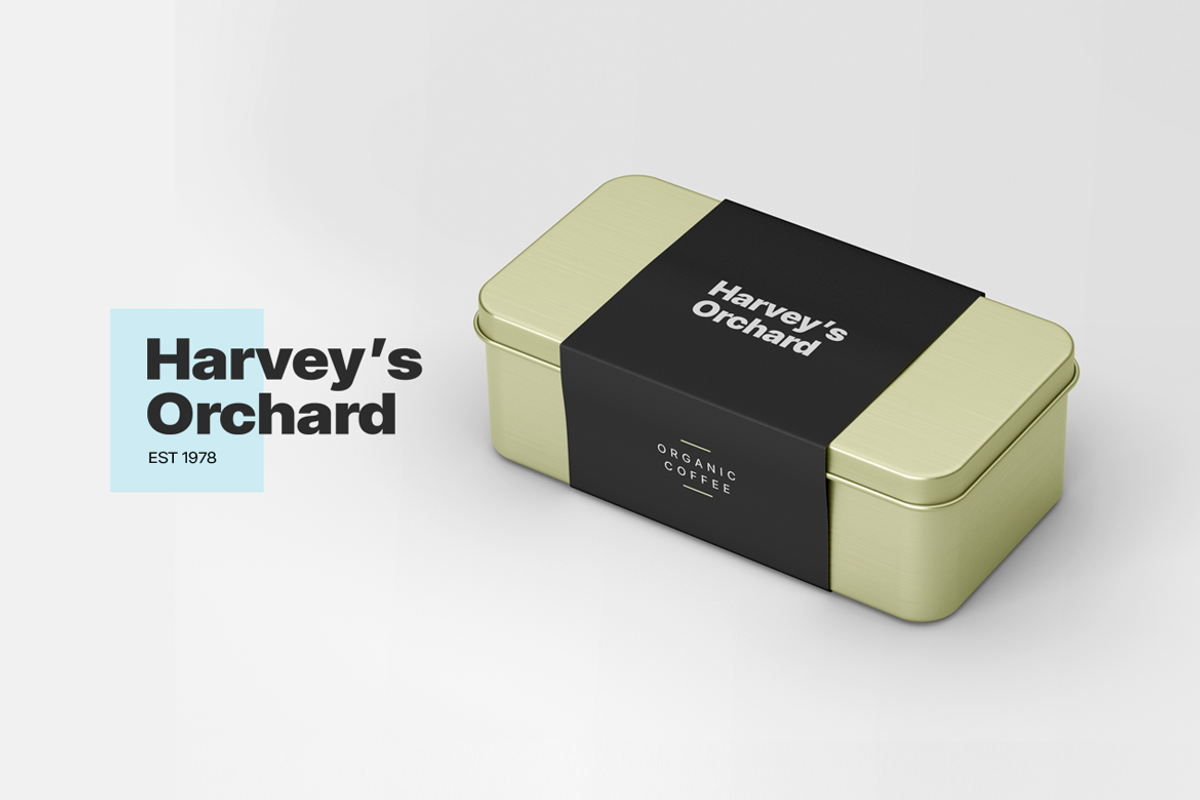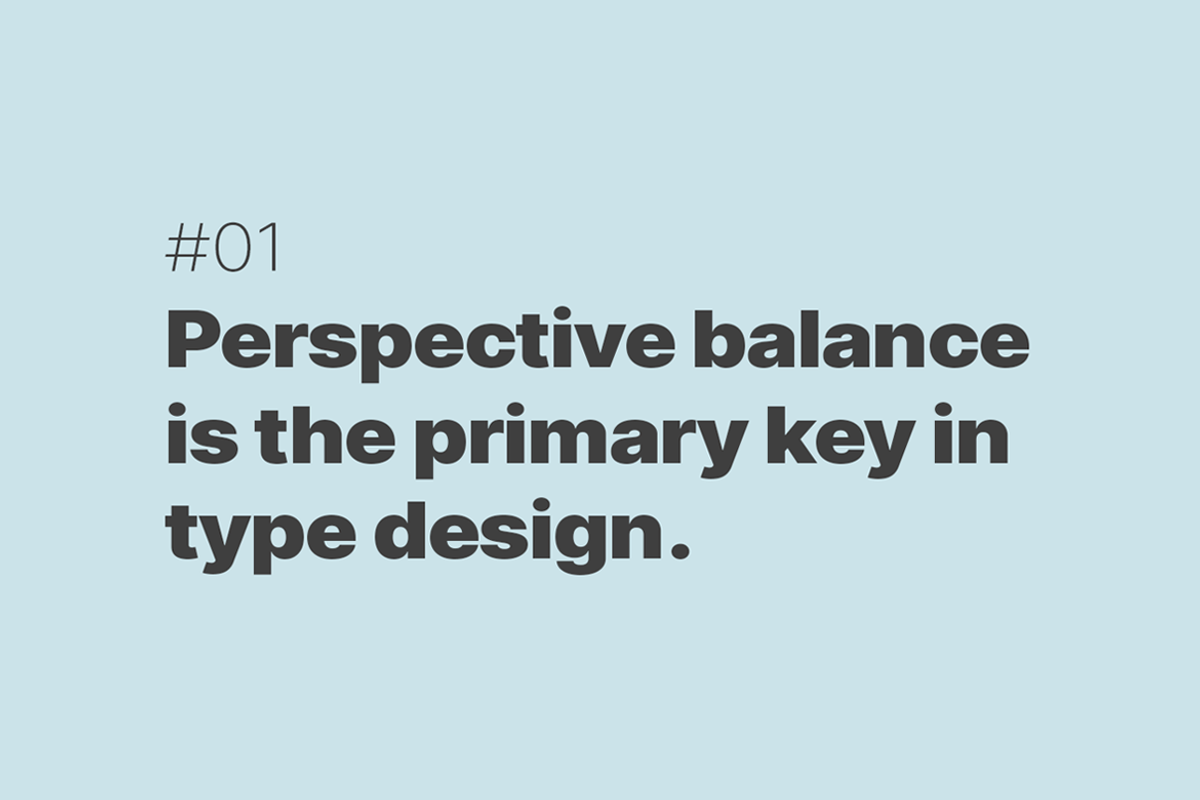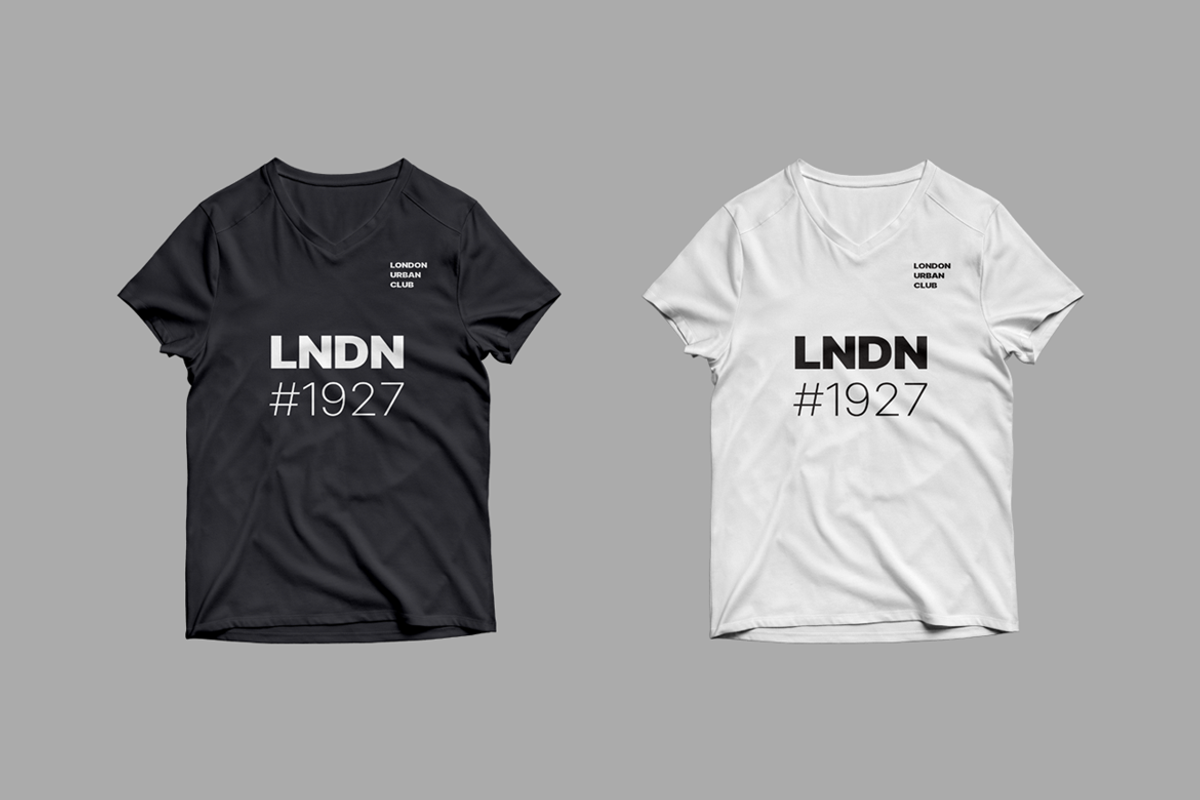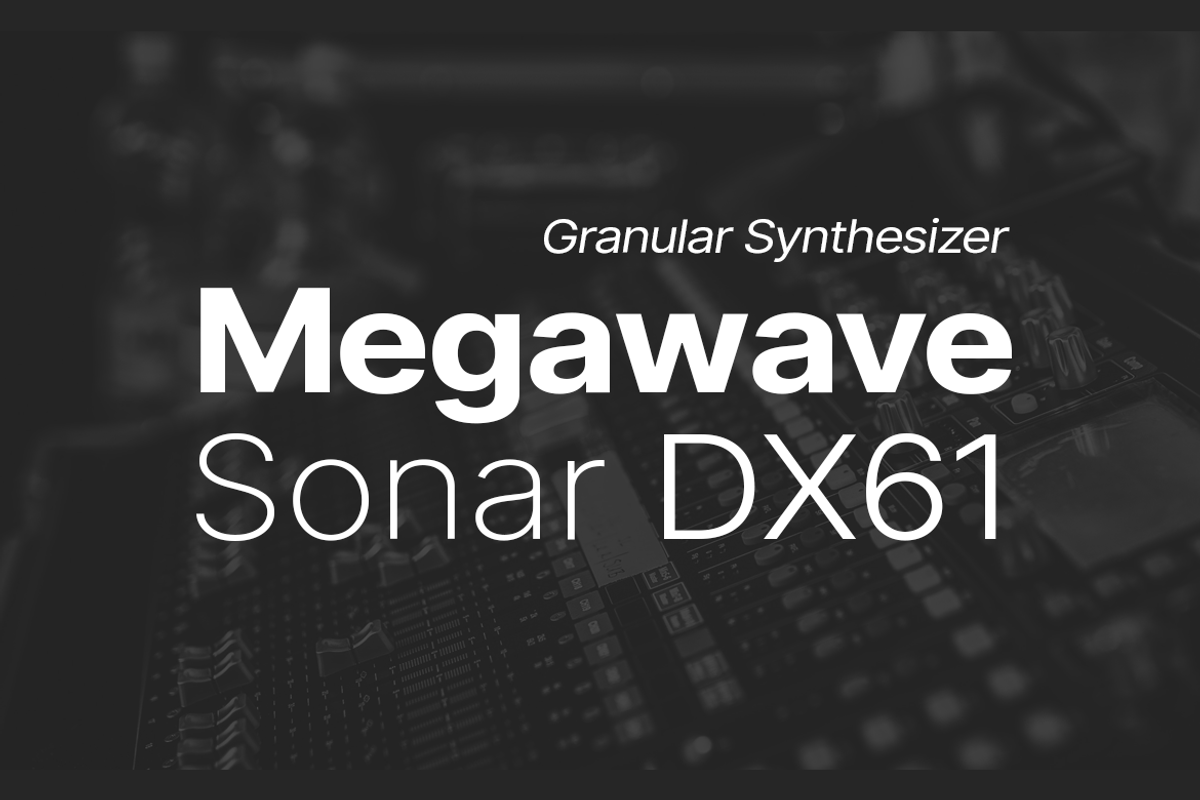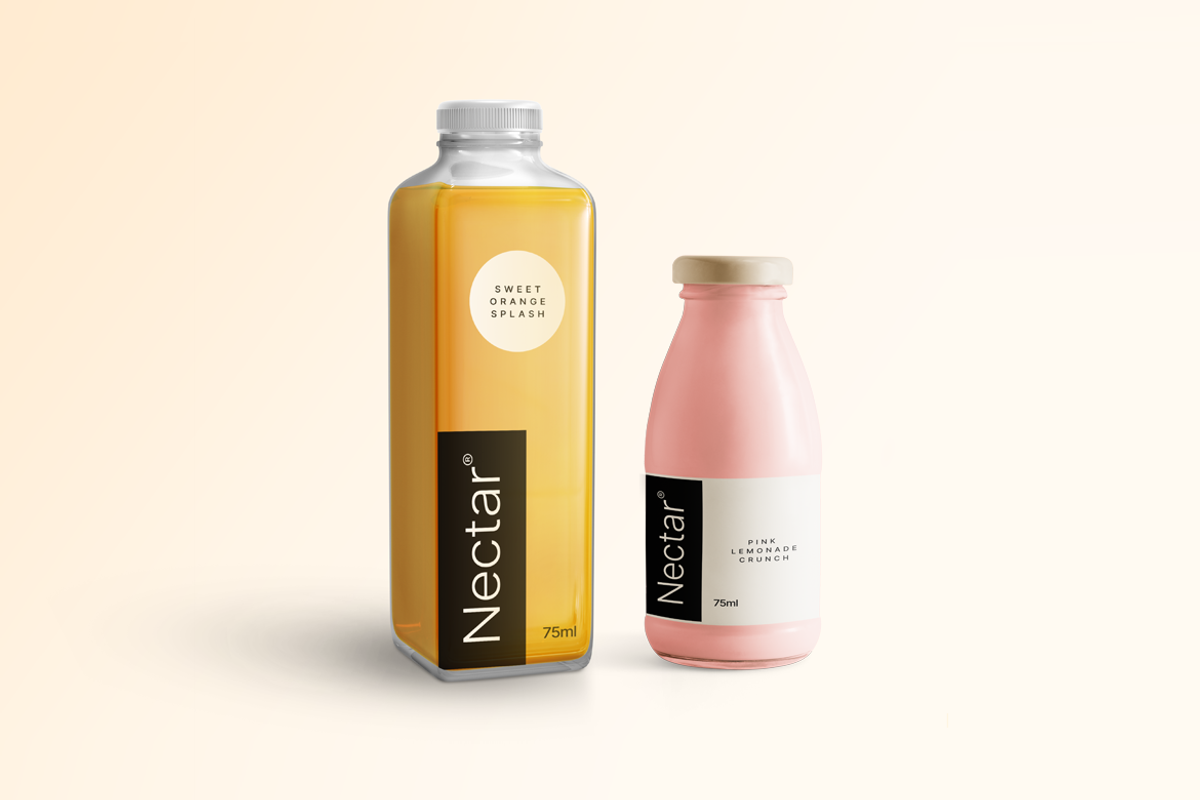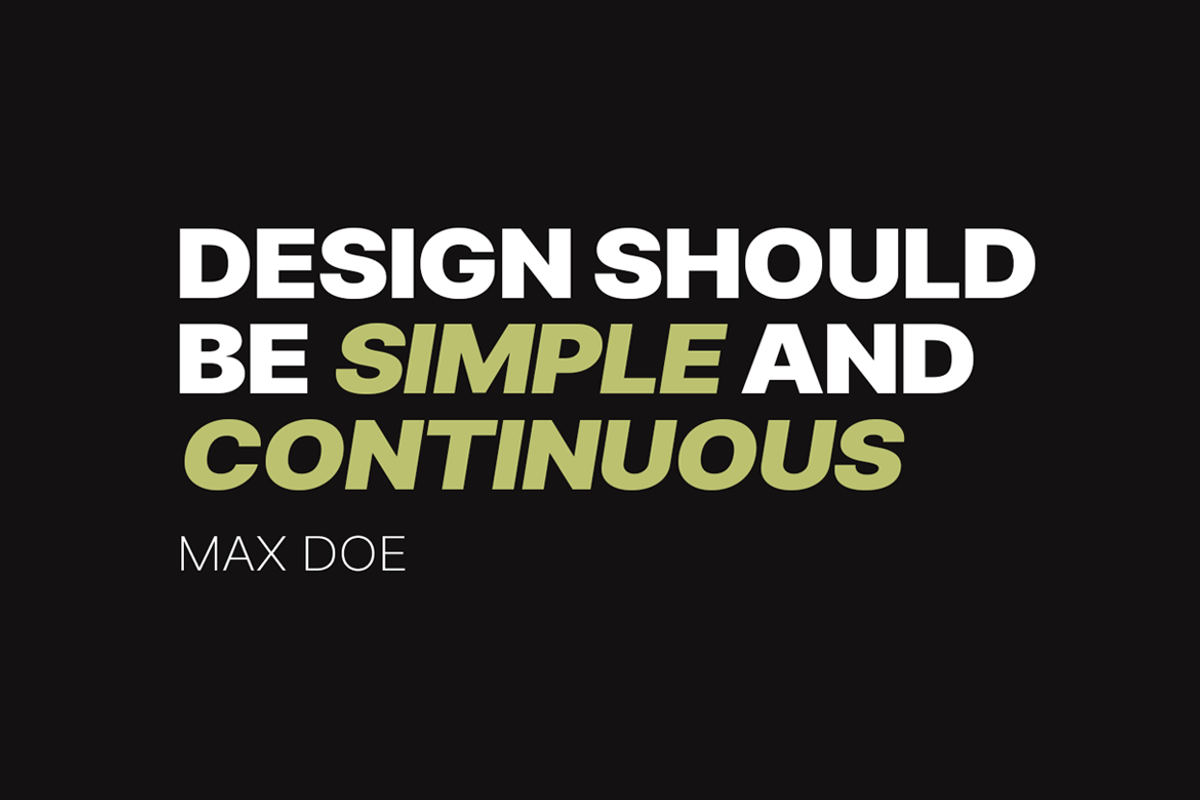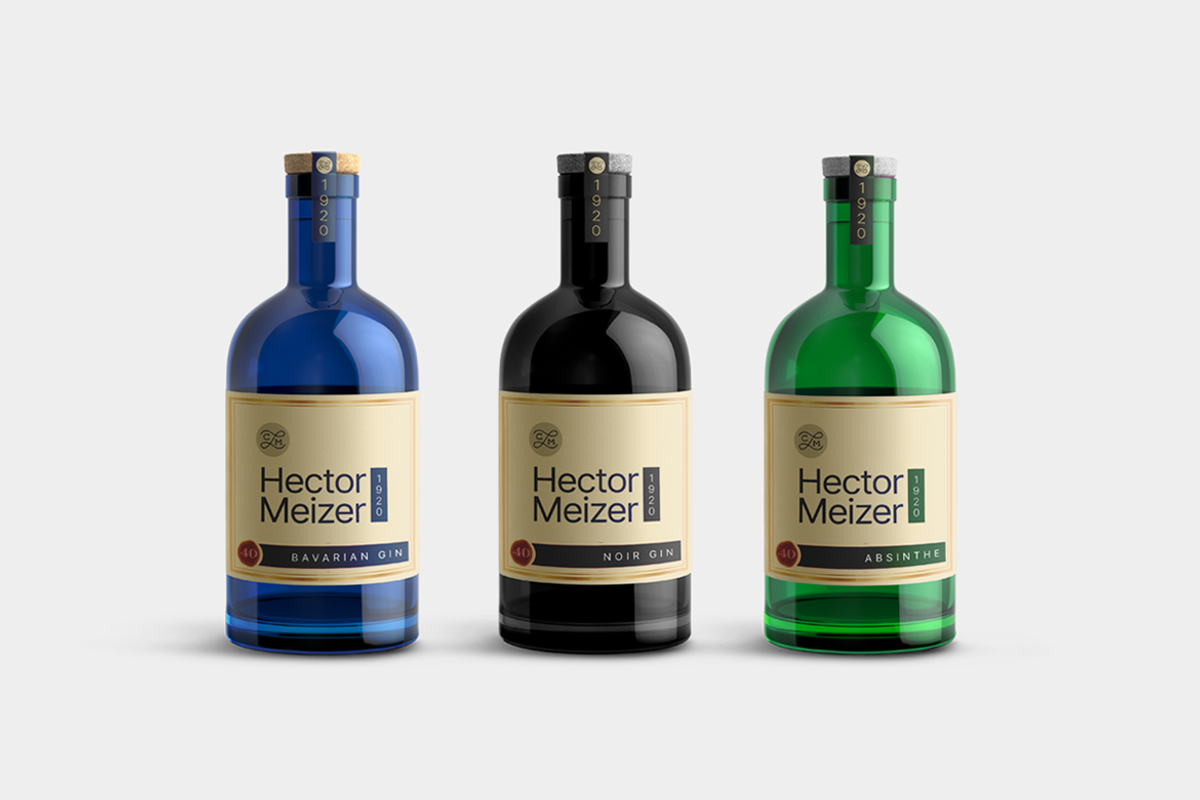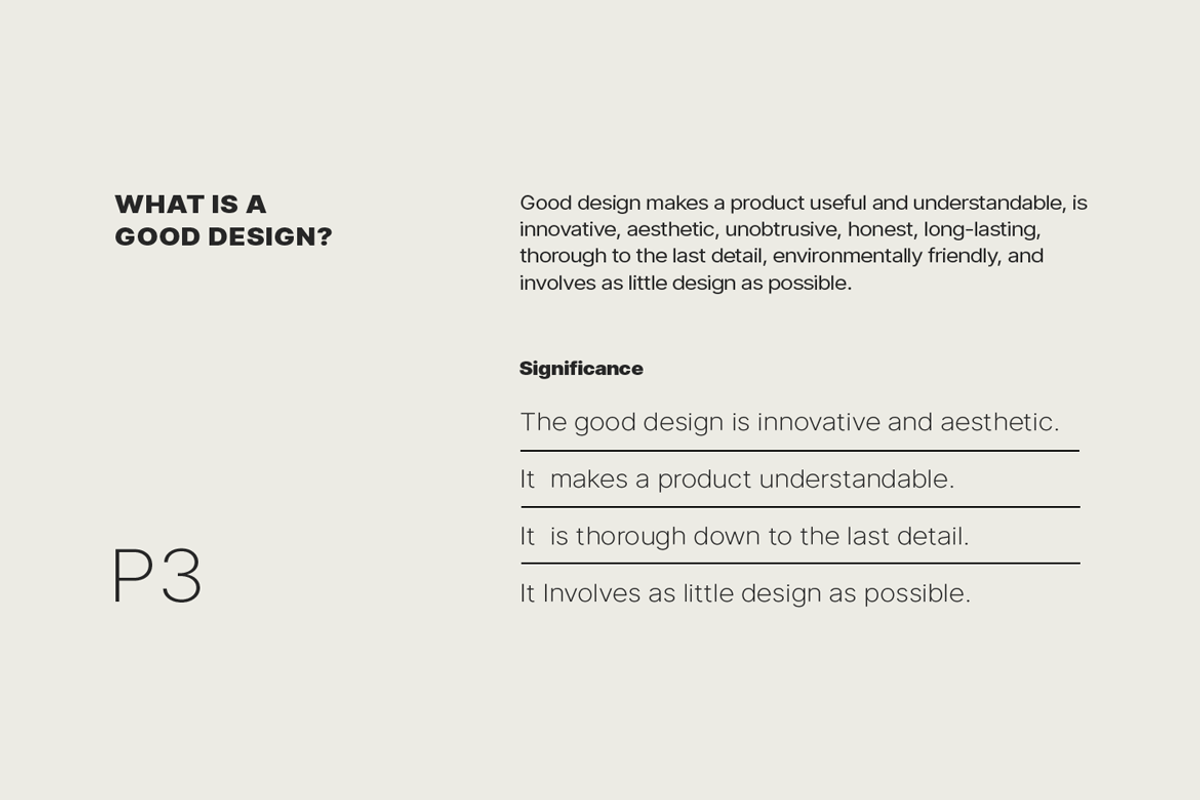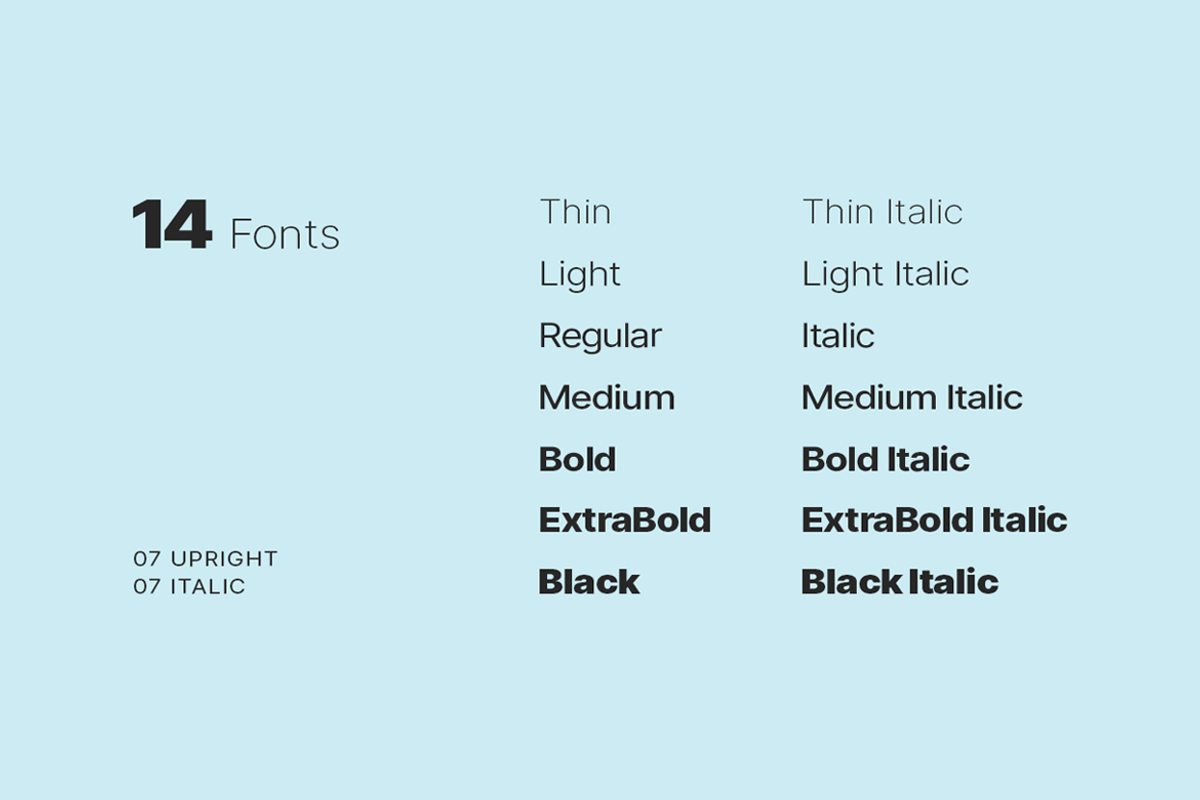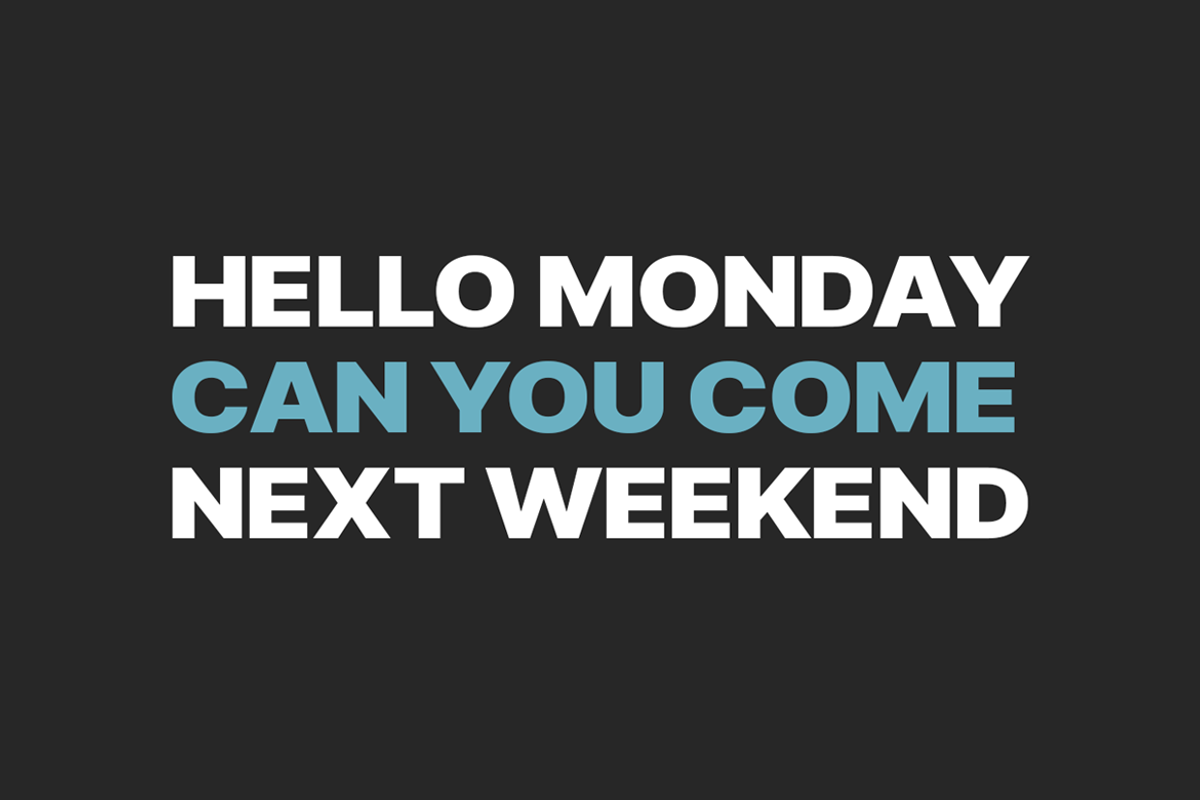
STAGE GROTESK - Modern Font Family
ABOUT THE TYPEFACE:
A classic sans-serif typeface made with perfection and readability in focus, Stage Grotesk is your simple choice for textual representation at its level best. Created with a special focus on minimalism and simplicity in typography, this typeface can transform your design projects to another level of visual appeal.
Stage Grotesk typeface family comes with a total of 14 fonts having 7 weights (Thin / Light / Regular / Bold / ExtraBold / Black) including upright as well as Italic versions of all weights.
Handcrafted and designed with powerful OpenType features in mind, each weight includes extended language support including Western European & Central European sets. A total of 618 glyphs are included covering extra symbols, punctuations, and marks.
Stage Grotesk is a perfect choice for graphic design, text presentation, web design, print, and display use. The typeface can be an amazing option for beautiful branding, logo/logotype design projects, marketing graphics, banners, posters, signage, corporate identities as well as editorial design. Adding extra letter-spacing for the upright capital letters will make this font perfect for minimal headlines and logotypes as shown in promo images here.
Typeface designed by Designova.